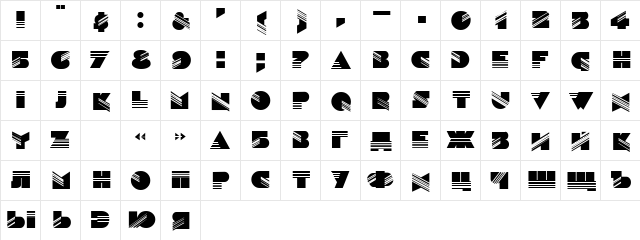
DG_Sinaloa Normal Font Preview
DG_Sinaloa Normal
DG_Sinaloa Normal Font Details
Design Context for DG_Sinaloa Typeface
DG_Sinaloa is a composed and adaptable typeface that performs quietly and consistently across a wide range of design contexts.